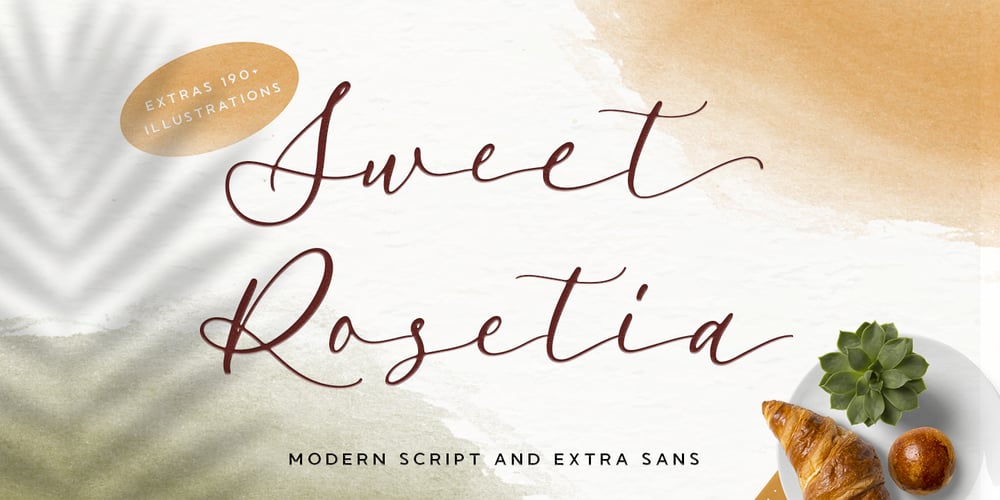
Sweet Rosetia
Sweet Rosetia font
Sweet Rosetia Font Family was designed by Fitriyawan and published by Runsell Type. Sweet Rosetia contains 3 styles and family package options. Sweet Rosetia font family consists of a script, a sans style and a set of dingbats. The handwritten modern script works perfectly together with the sans serif and 190+ cute illustrations. Sweet Rosetia Script includes a full set of lowercase letters with beginning swashes , a full set of lowercase letters with ending swashes, contextual alternates, stylistic alternates and ligatures features that makes the font look more natural. Sweet Rosetia is perfect in designs such as logotypes, brand, magazines, websites or blog headlines, packaging, branding, quotes, invitation cards, greeting cards, business cards, wedding invites, and more. Sweet Rosetia Includes: – Ligatures, Contextual alternates, Stylistic alternates, and Swash (Beginning and Ending Swashes) Uppercase, lowercase, numeral and punctuation – Sweet Rosetia Regular and Sweet Rosetia Sans – 190+ cute illustrations – PUA Encoded Characters – Fully accessible without additional design software – Multilingual support for English, French, Italian, Spanish, Portuguese, German, Swedish, Norwegian, Danish, Dutch, Finnish, Indonesian, Malay, Hungarian, Polish, Croatian, Turkish, Romanian, Czech, Latvian, Lithuanian, Slovak, Slovenian. How to get access alternate glyphs with designing software to OpenType fonts, check this link : http: //adobe.ly/1m1fn4Y